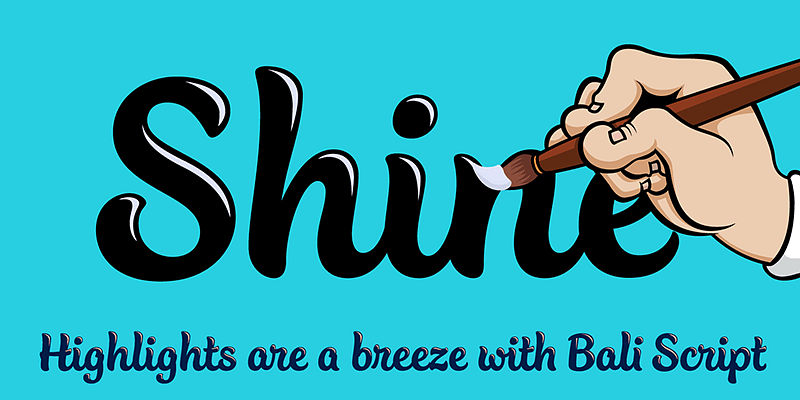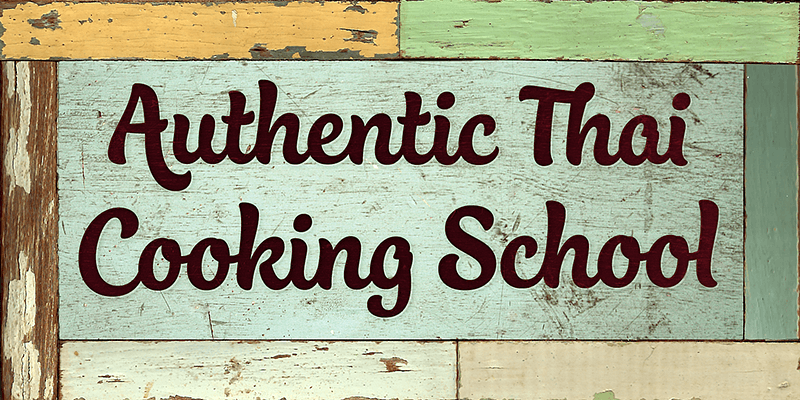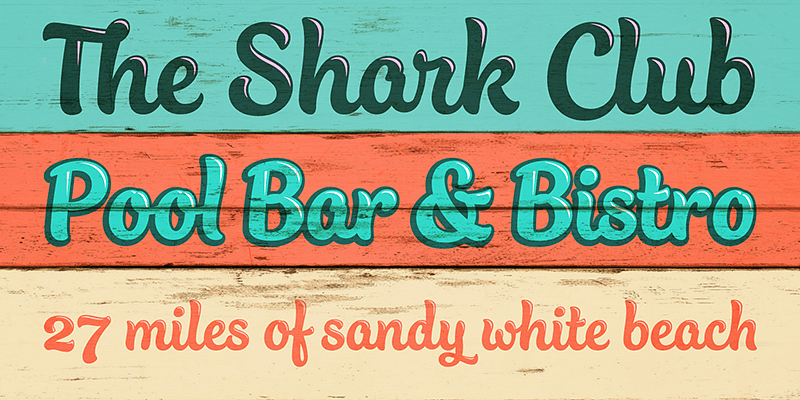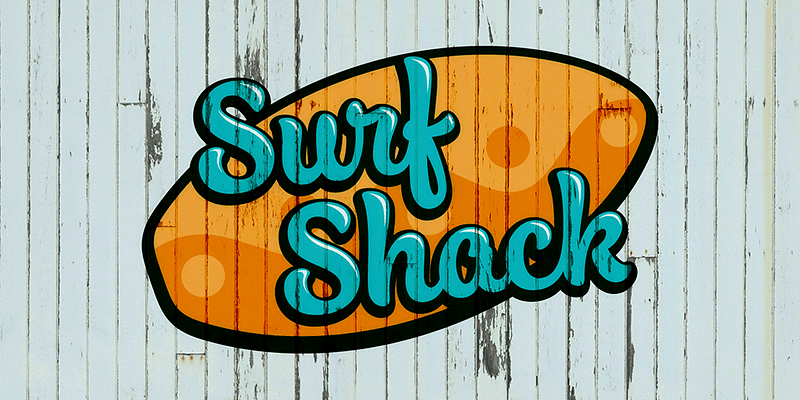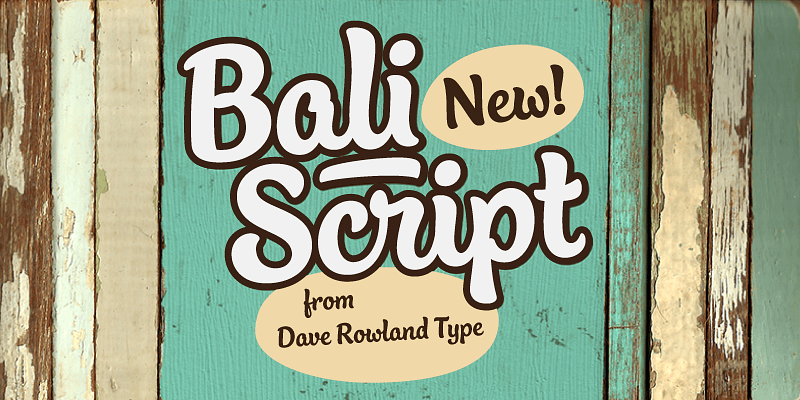
Dave Rowland Type
First it was Schizotype, then Eclectotype, now meet Dave Rowland Type, the foundry whose typefaces will breathe new life into your work. With a passion for fonts, Dave uses artistry and craft to transform your words with his captivating array of typefaces. More than just letters, his fonts are distinctly versatile, wildly detailed, and carefully refined. Whether you need a classic serif, modern sans, playful script, or quirky display, Dave Rowland Type embodies emotion, style, and storytelling.